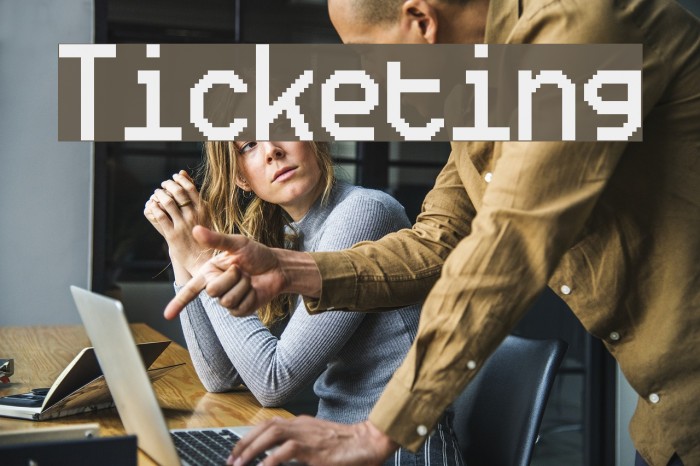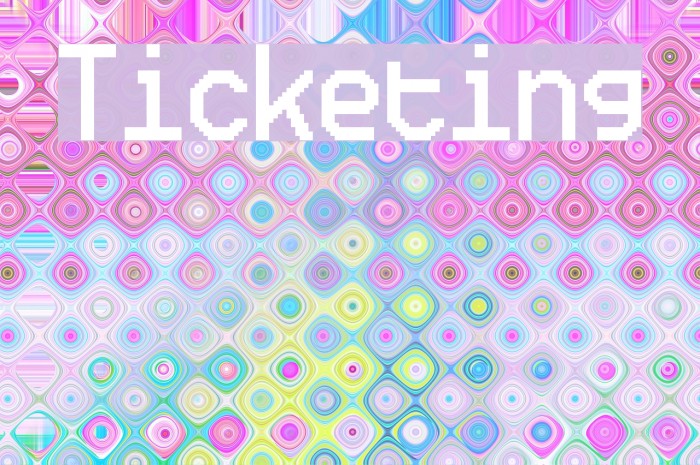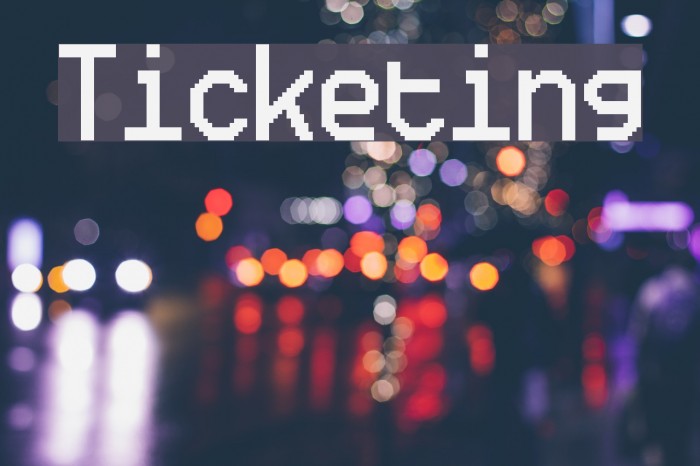
Ticketing Font
Ticketing Description
This font features a pixelated, blocky design reminiscent of early digital displays and retro video games. Each character is constructed with a grid-like precision, giving it a distinctly digital and mechanical appearance. The uppercase and lowercase letters maintain a consistent height, contributing to a uniform and cohesive look. The numerals and special characters follow the same design principles, ensuring readability and a cohesive aesthetic. The font's simplicity and geometric structure make it ideal for projects that require a vintage or tech-inspired feel.
A pixelated, blocky font with a retro digital aesthetic from Uncategorized fonts.
- Proposed Projects: Ideal for retro video game designs, tech-themed posters, digital art, and any project that requires a vintage digital look.
- Overall Style: Vintage
- Use Case: Logos, Headlines, Digital displays